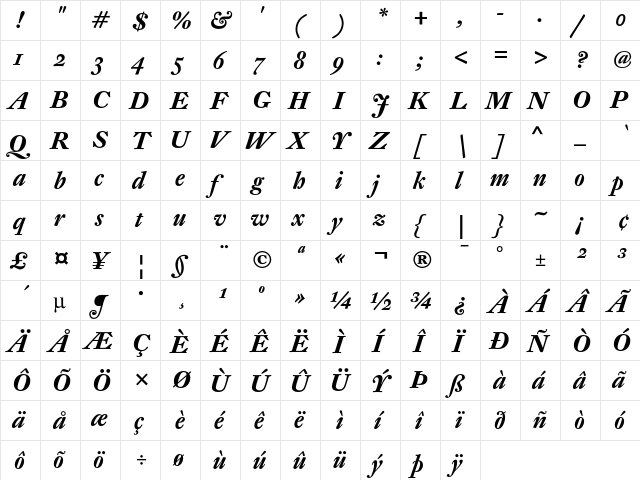
DTL Fleischmann SD Bold Italic
Design Context for DTL Fleischmann Typeface
DTL Fleischmann is a composed and adaptable typeface that performs quietly and consistently across a wide range of design contexts. Its italic angle brings a sense of urgency and motion to the letterforms. Its bold stroke weight gives it real presence on the page.
Pro Tip: Try DTL Fleischmann for annotation and caption copy alongside an upright companion — the contrast in angle creates a dynamic but ordered typographic system.